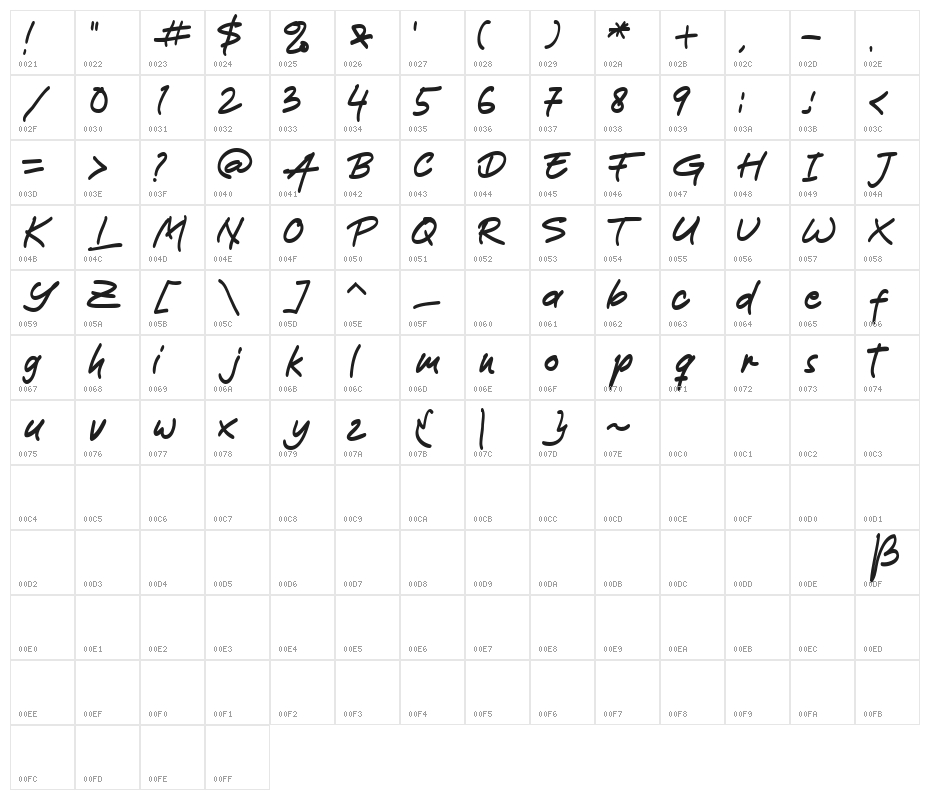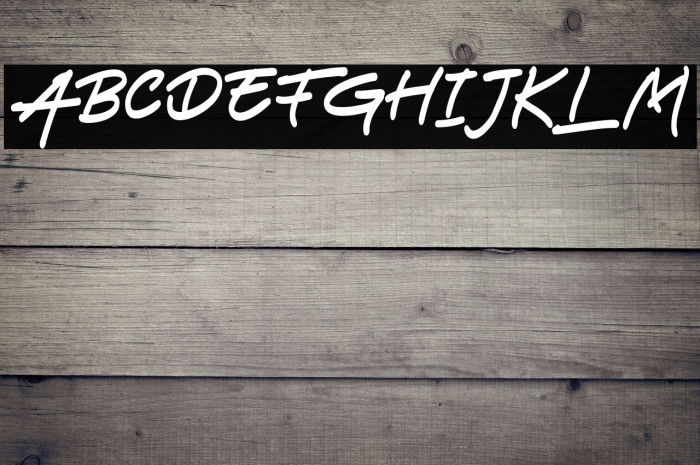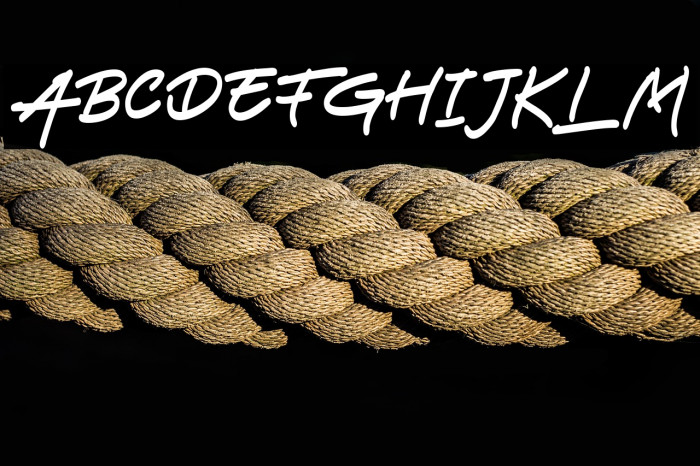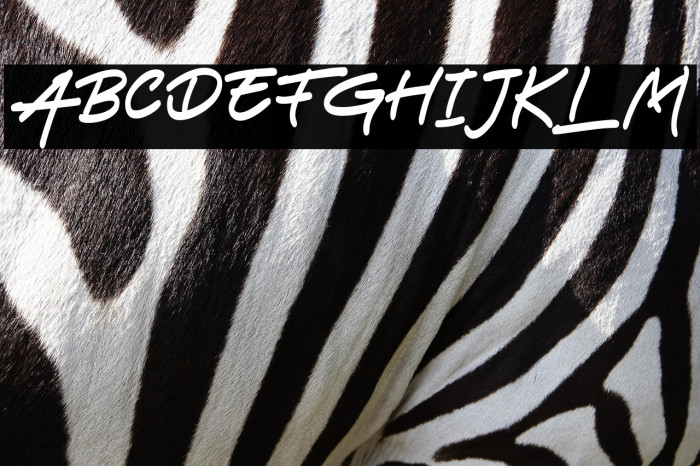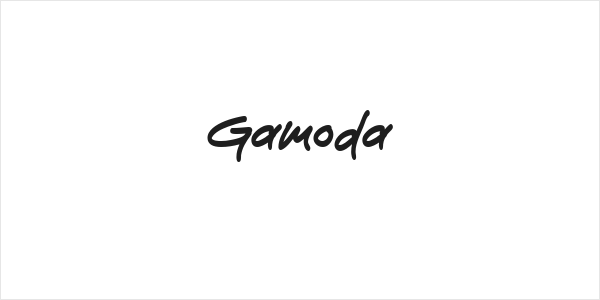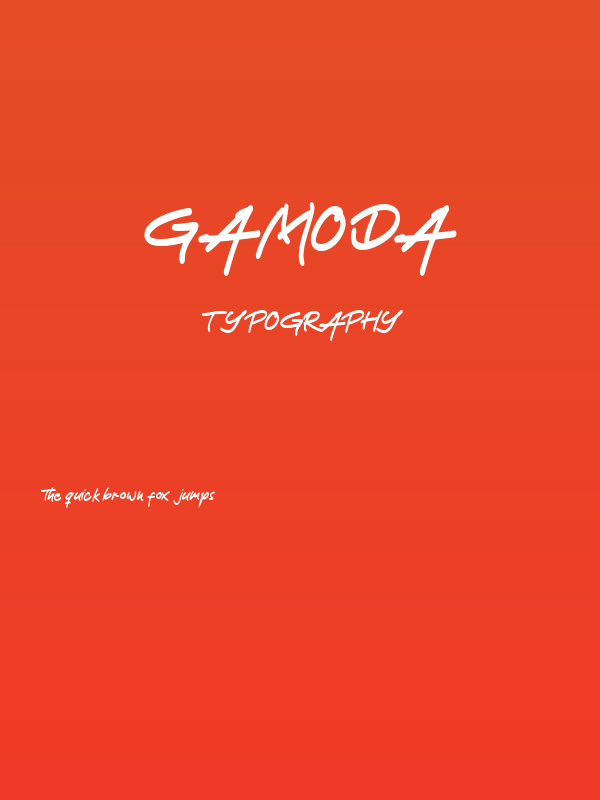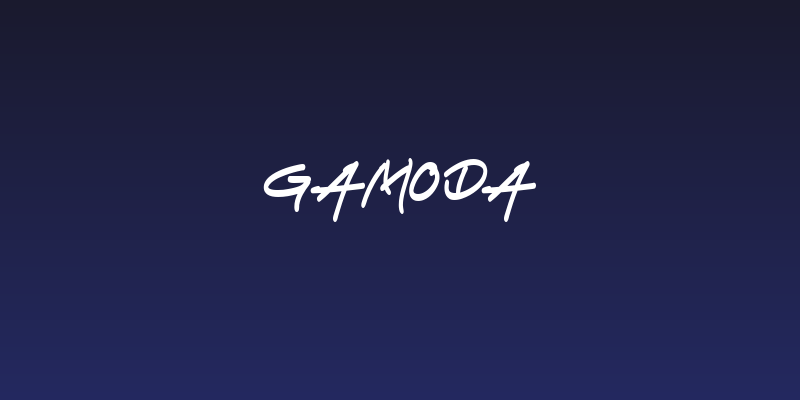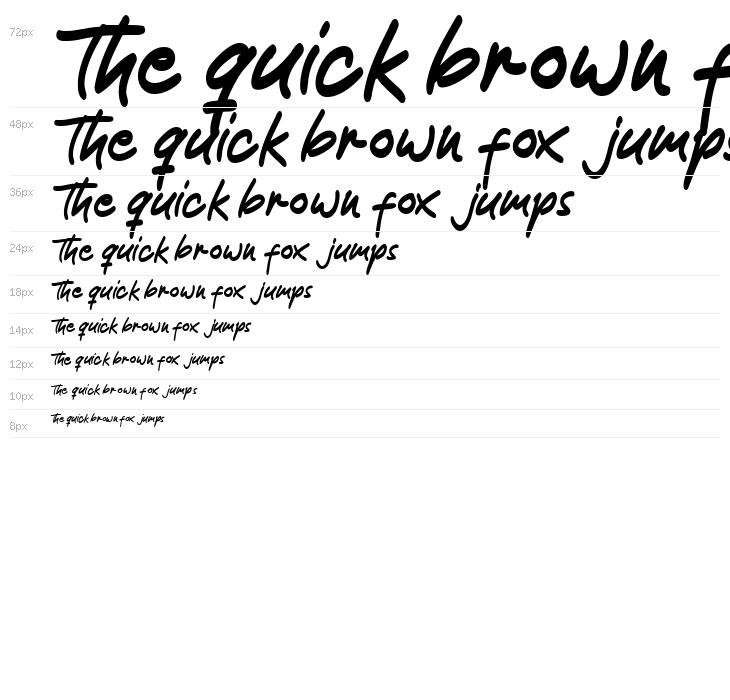
Gamoda Font
Gamoda Description
This font features a dynamic and expressive handwritten style, characterized by its fluid strokes and casual appearance. The uppercase letters maintain a consistent height, while the lowercase letters exhibit a playful bounce, adding to the font's informal charm. The numerals are bold and slightly slanted, matching the overall energetic feel. Special characters are well-integrated, maintaining the same lively and spontaneous aesthetic. This font is perfect for projects that require a personal touch, such as invitations, greeting cards, or branding materials that aim to convey warmth and approachability.
| Overall Style | Casual, Expressive |
| Proposed Projects | Ideal for invitations, greeting cards, personal branding, and creative projects requiring a personal touch. |